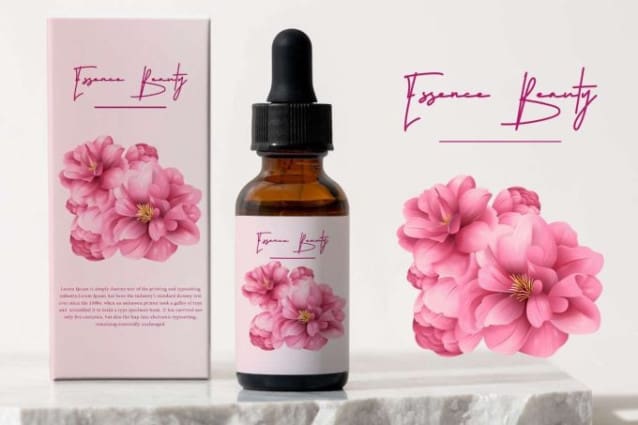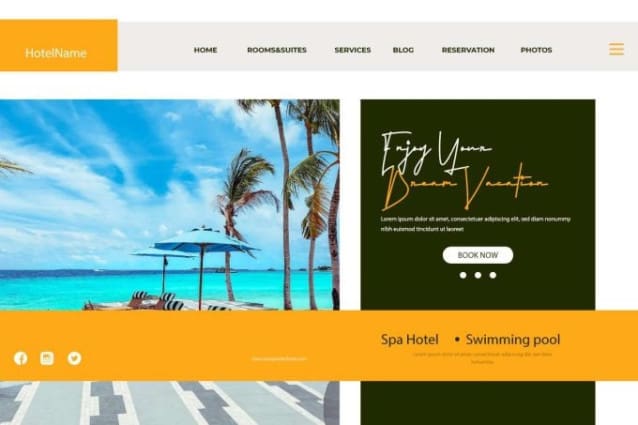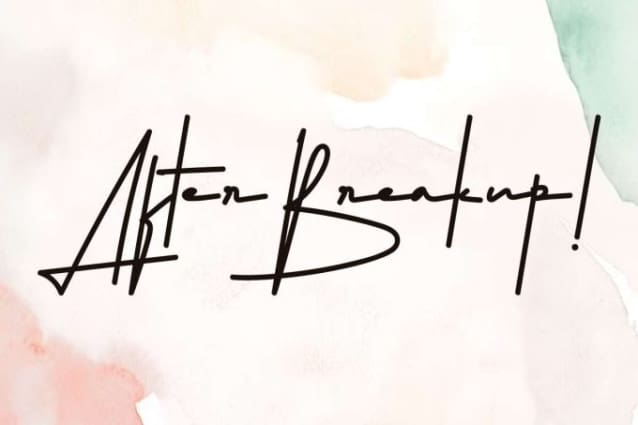
After Breakup Font
After Breakup Font is a casual, tall and elegant signature pen writing font designed by VinType Studio. This font has thin lines and has a spontaneous assertiveness from the way of writing. This font will be suitable for many industries, such as advertisement, beauty product, design interior, event or wedding organizer, fashion, handcraft, homeware, photography, spa and salon, and more!
After Breakup Font includes full set of Uppercase and Lowercase Basic Characters, Numerals, Punctuation, Symbol, and Ligature. This font kind of mirrors your handwriting when you pour your heart out in after breakup writing, so it will work well with a lot of designs, such as brand logo, brochure, business card, custom design, invitation, label, packaging design, quote, screen printing, stationery, website, etc.